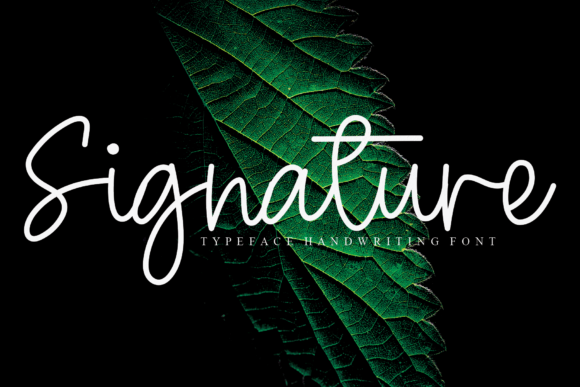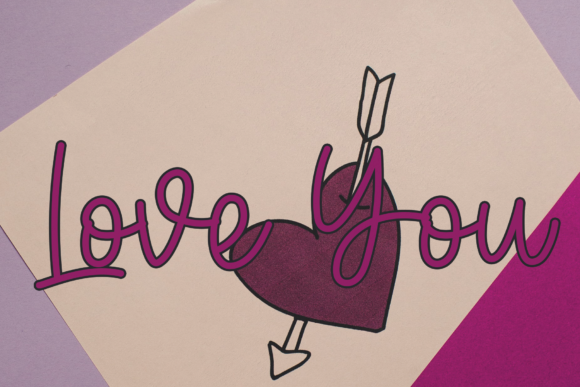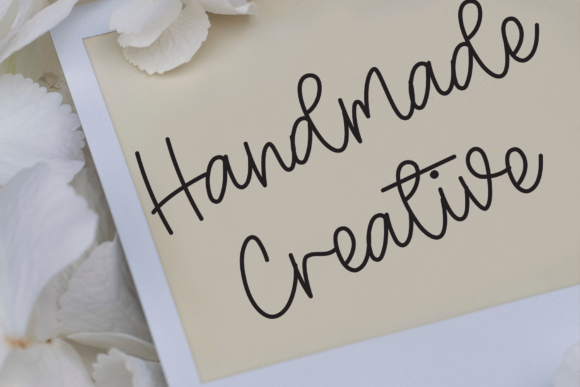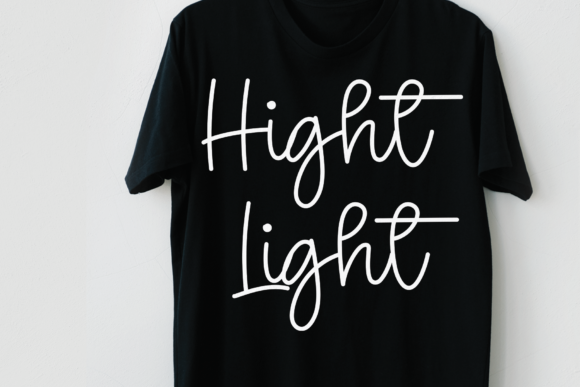
Signature is a thin and slightly asymmetrical handwritten font that brings a touch of sophistication and elegance to your designs. With its unique style, it serves as a valuable asset to your font library, capable of enhancing a wide range of creations.
The slender and delicate strokes of Signature create a sense of refinement and elegance. Its asymmetrical nature adds a touch of character and uniqueness, making it stand out from more traditional fonts. Whether you’re designing logos, invitations, branding materials, or any other creative project, Signature has the potential to elevate your design and give it a distinctive look.
One of the key strengths of Signature is its versatility. It adapts well to various topics and themes, making it suitable for a wide range of projects. Whether you’re creating a luxurious brand identity, a heartfelt wedding invitation, or an elegant headline, Signature effortlessly adds a touch of sophistication and refinement.
The handcrafted nature of Signature brings a personal and authentic touch to your designs. Each letter has been carefully crafted to maintain a sense of individuality and uniqueness, resulting in a truly custom look. This font’s handmade feel adds a sense of warmth and human connection, resonating with viewers on a personal level.
Despite its thin and delicate appearance, Signature remains highly legible and easy to read. The careful balance of letter proportions and spacing ensures clarity, ensuring that your message is effectively communicated. This makes it suitable for various design mediums, including both print and digital applications.
In conclusion, Signature is a thin and slightly asymmetrical handwritten font that adds sophistication and elegance to your designs. Its versatility, handcrafted appeal, and legibility make it a valuable asset for any creative project. By incorporating Signature into your font library, you can elevate your designs and create impactful and visually stunning creations.